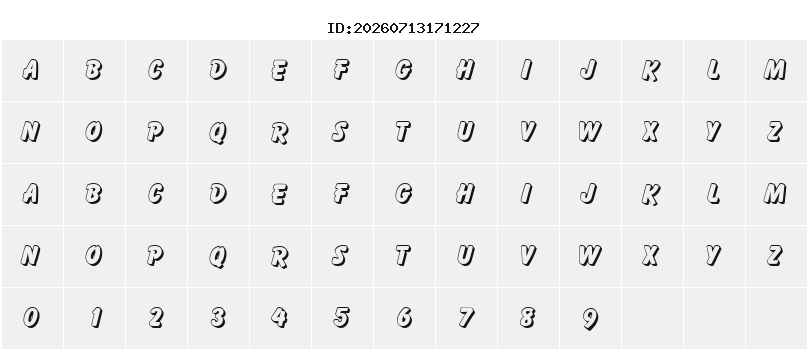
Balloon Becker Drop Shadow Preview
• Font Name: Balloon Becker Drop Shadow
• Full Font Name: Balloon_Becker_Drop_Shadow
• PostScript Name: BalloonBeckerDropShadow
About Balloon Becker Drop Shadow.ttf
Balloon Becker Drop Shadow.ttf is a modern, elegant sans-serif font designed for ultimate readability and visual harmony. Perfect for branding, headlines, web design, and print materials.